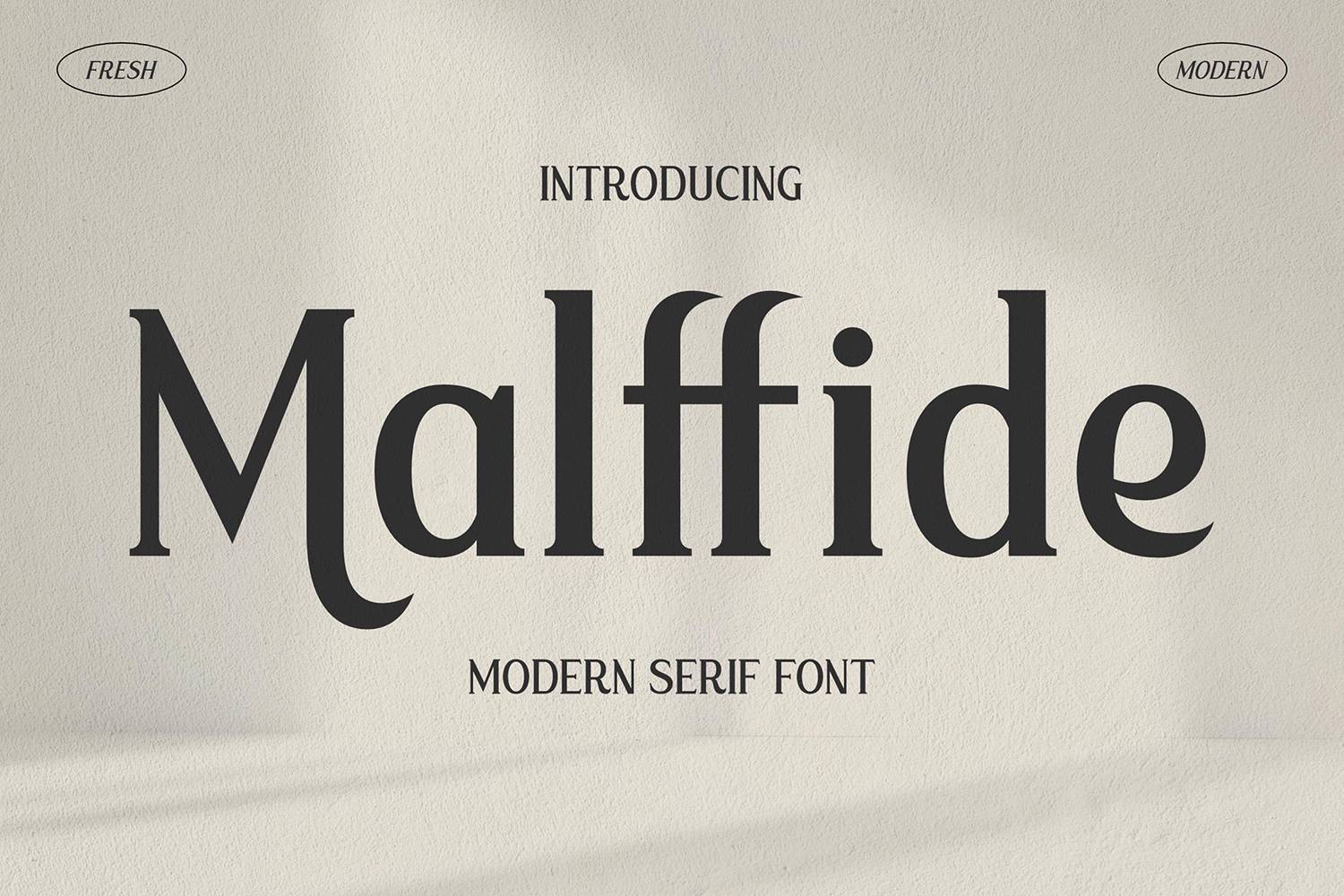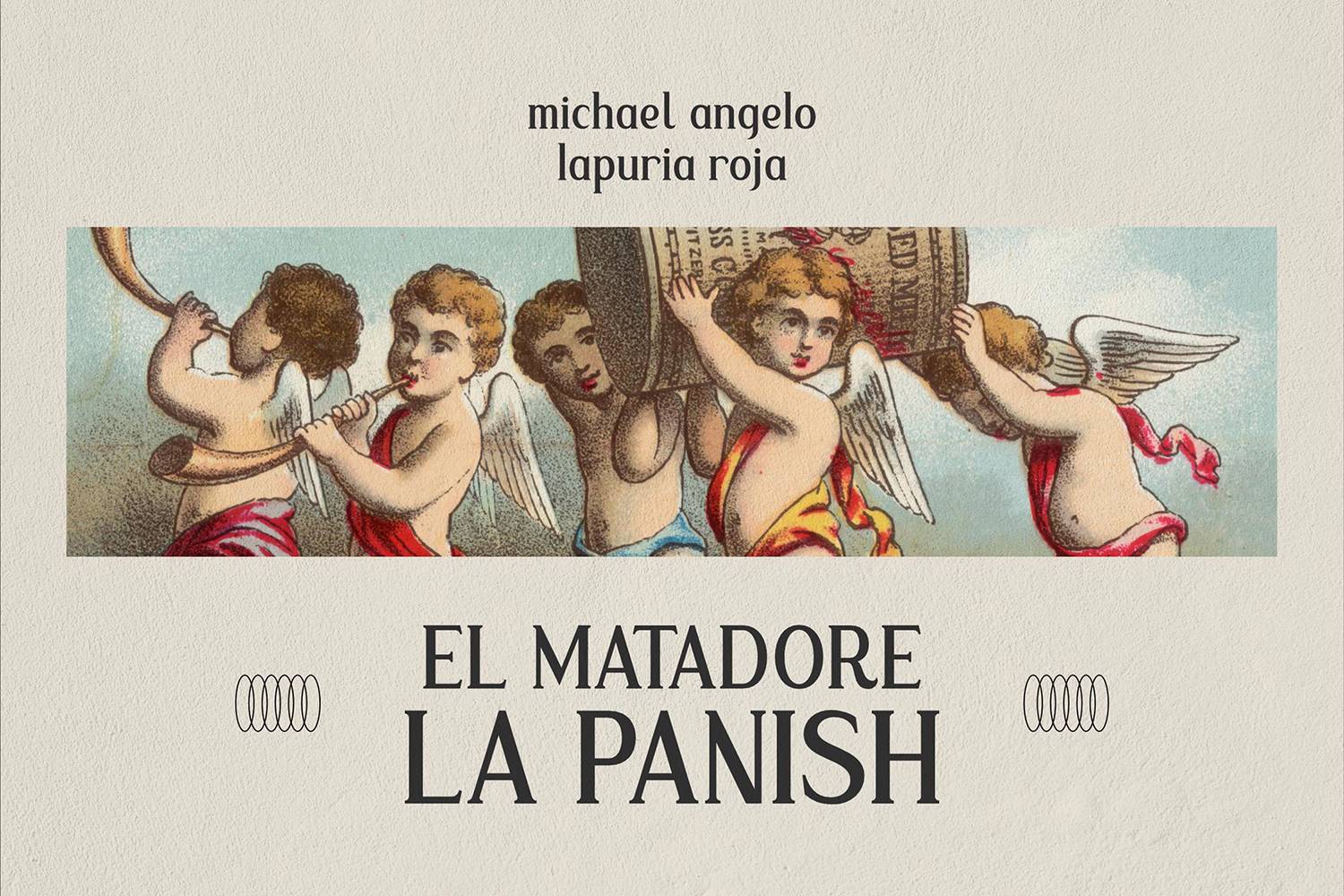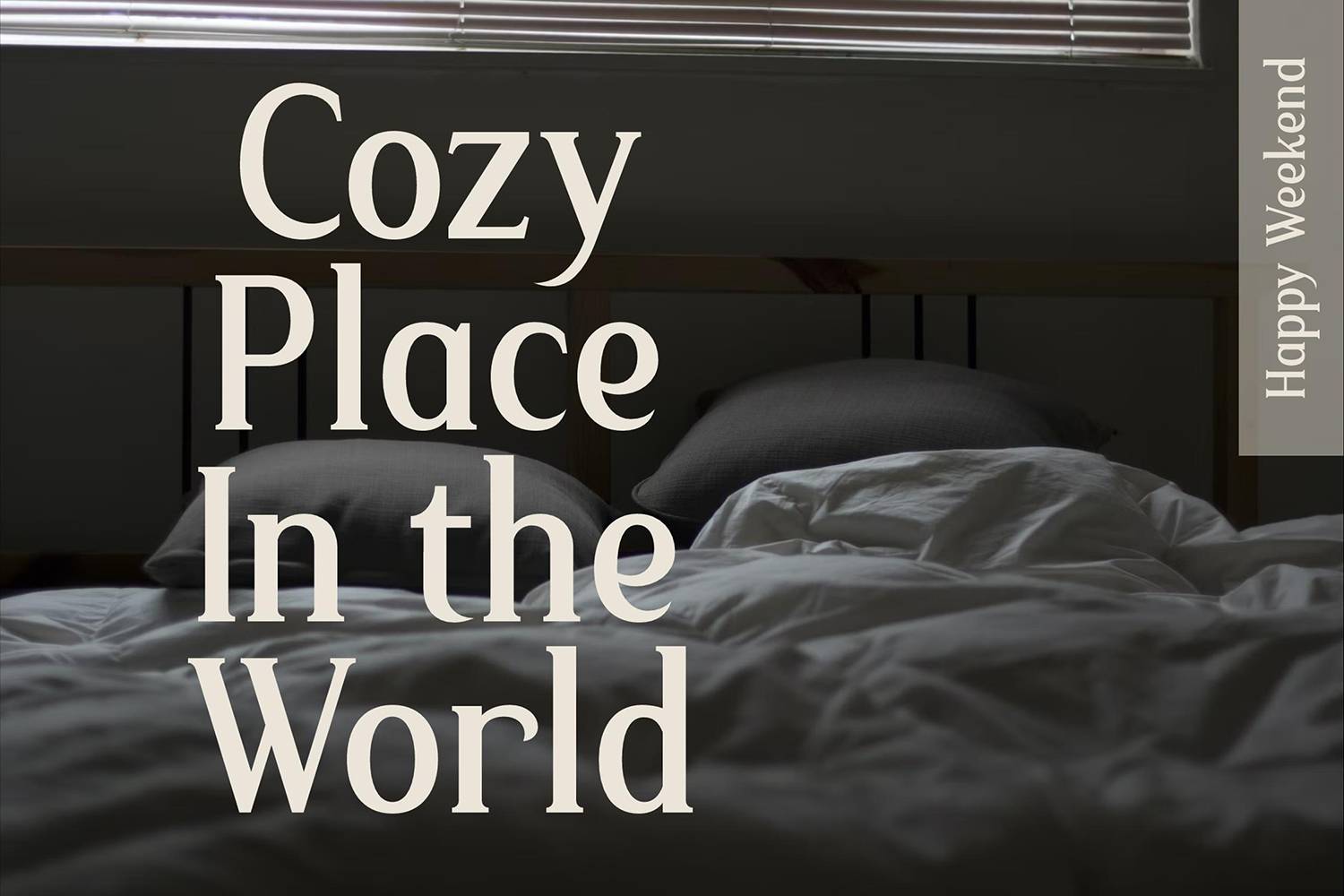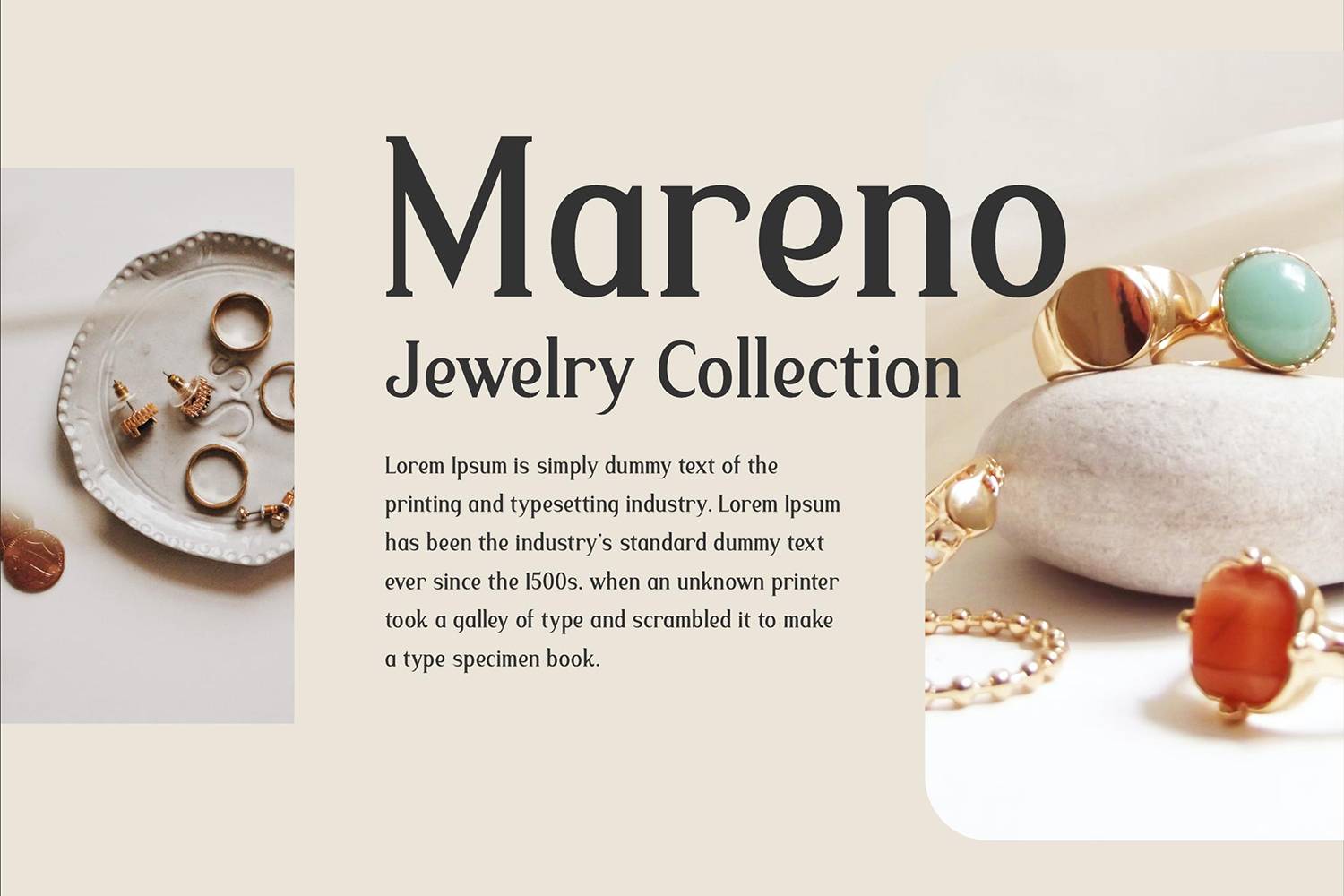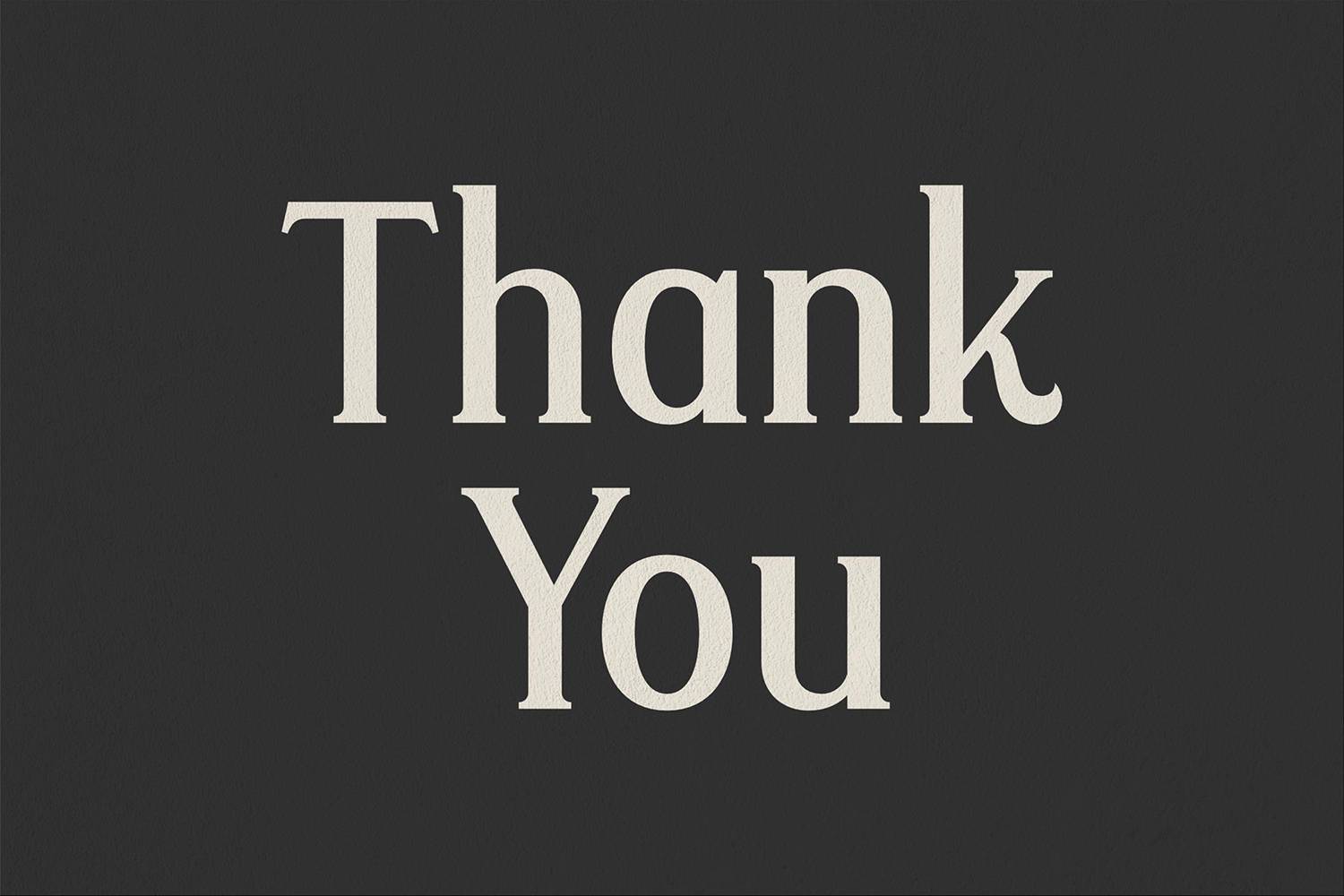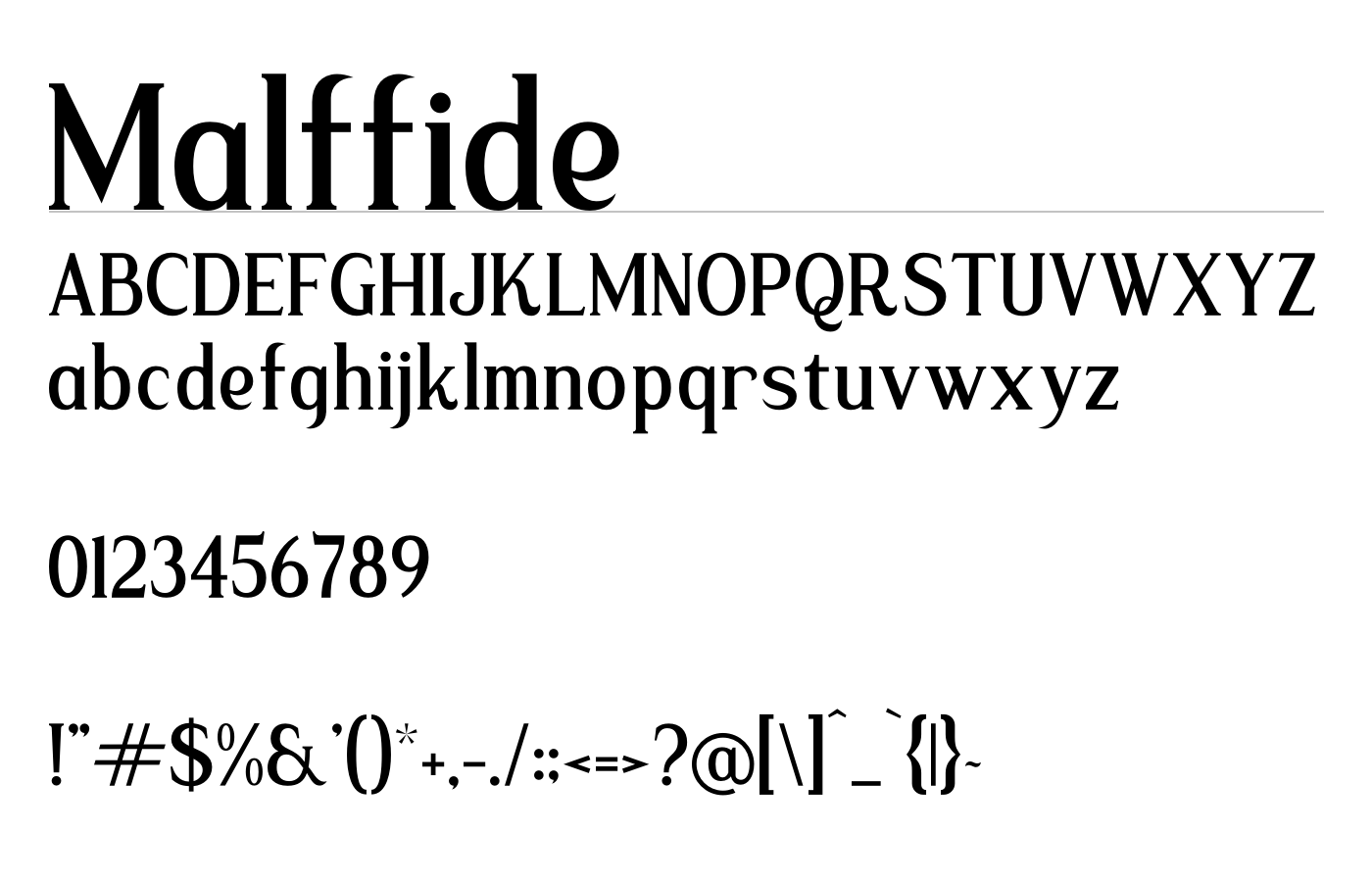
Malffide is a refined serif font that blends classic elegance with modern clarity. Featuring moderate stroke contrast, sharp bracketed serifs, and distinctive letterforms like its single-story "a" and slightly curved "Q" tail, it achieves a balanced, sophisticated look ideal for editorial design, branding, and formal uses. Its legible structure and timeless charm make it perfect for luxury packaging, headlines, and any setting that calls for a tasteful, authoritative voice.
Malffide Font
About Malffide Font